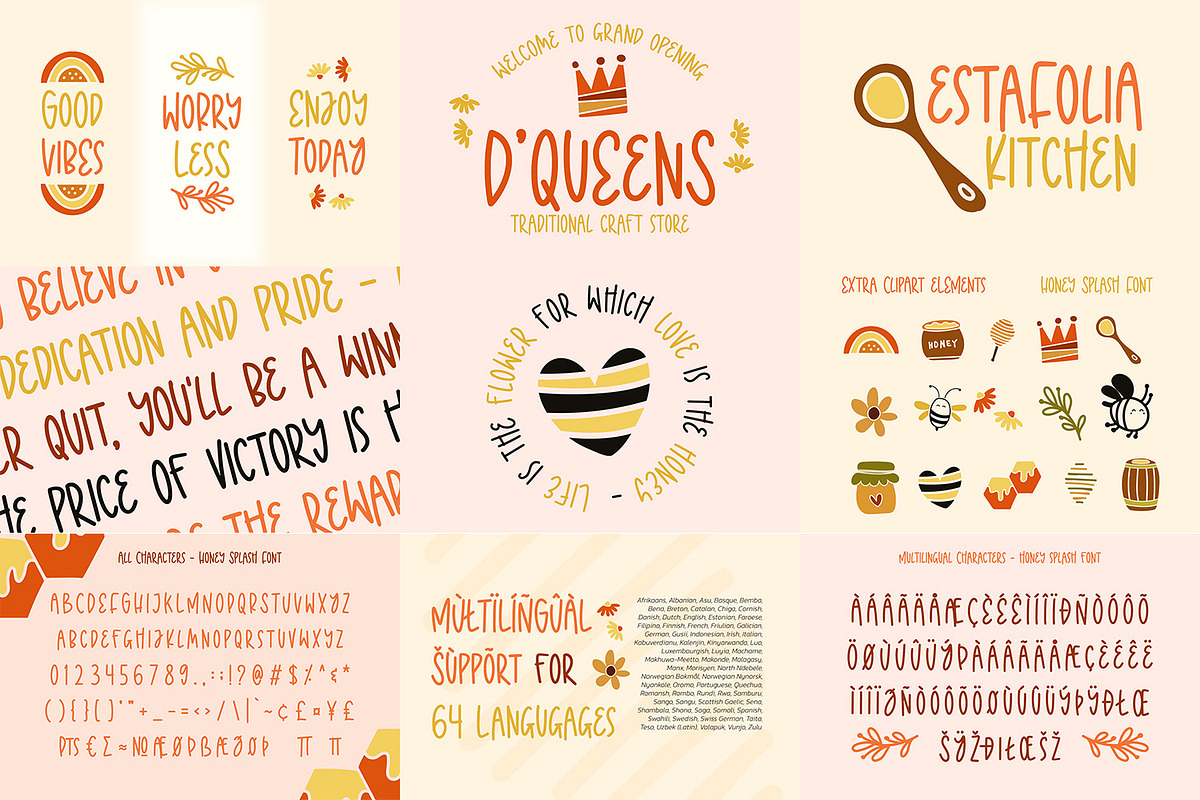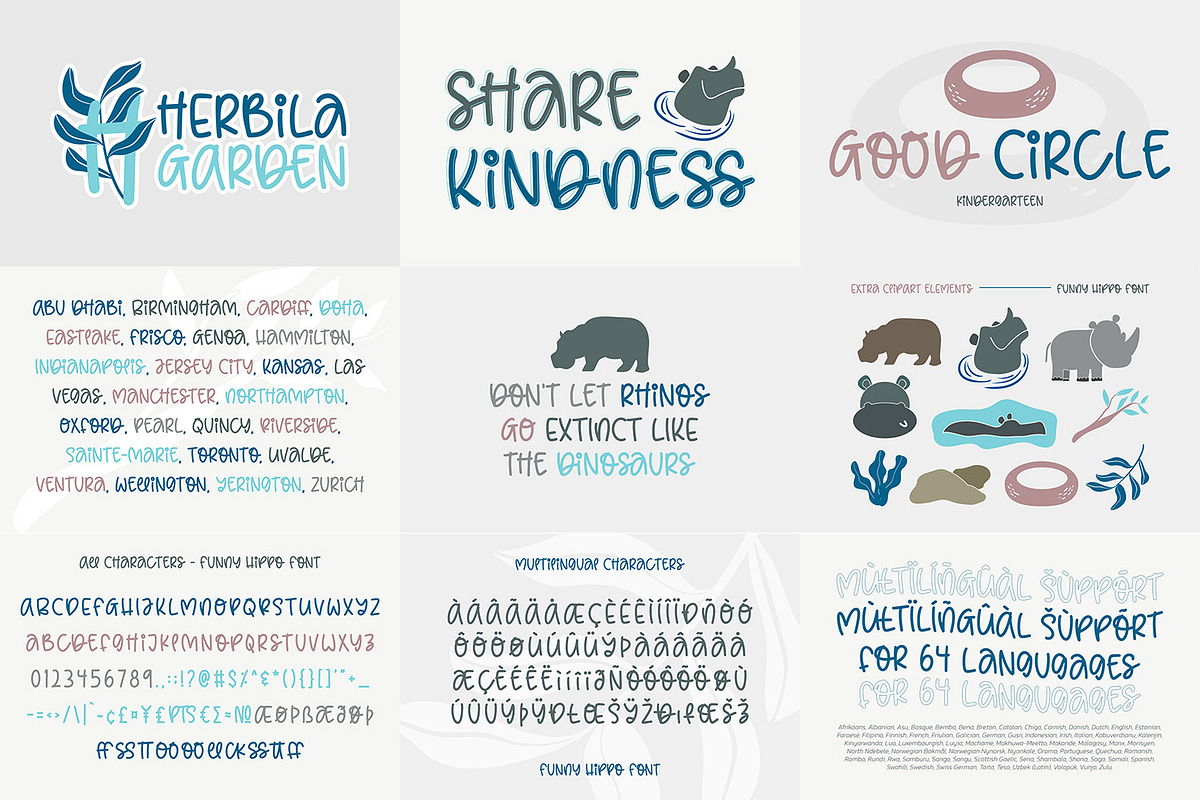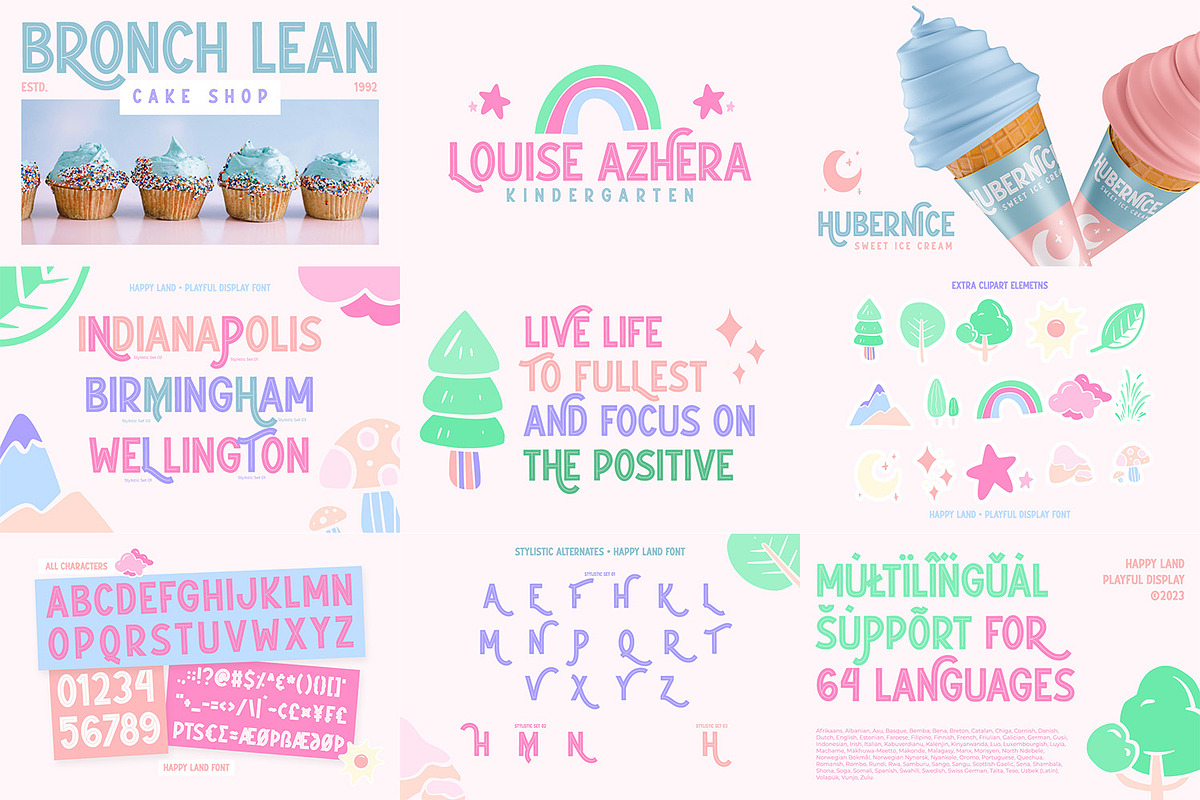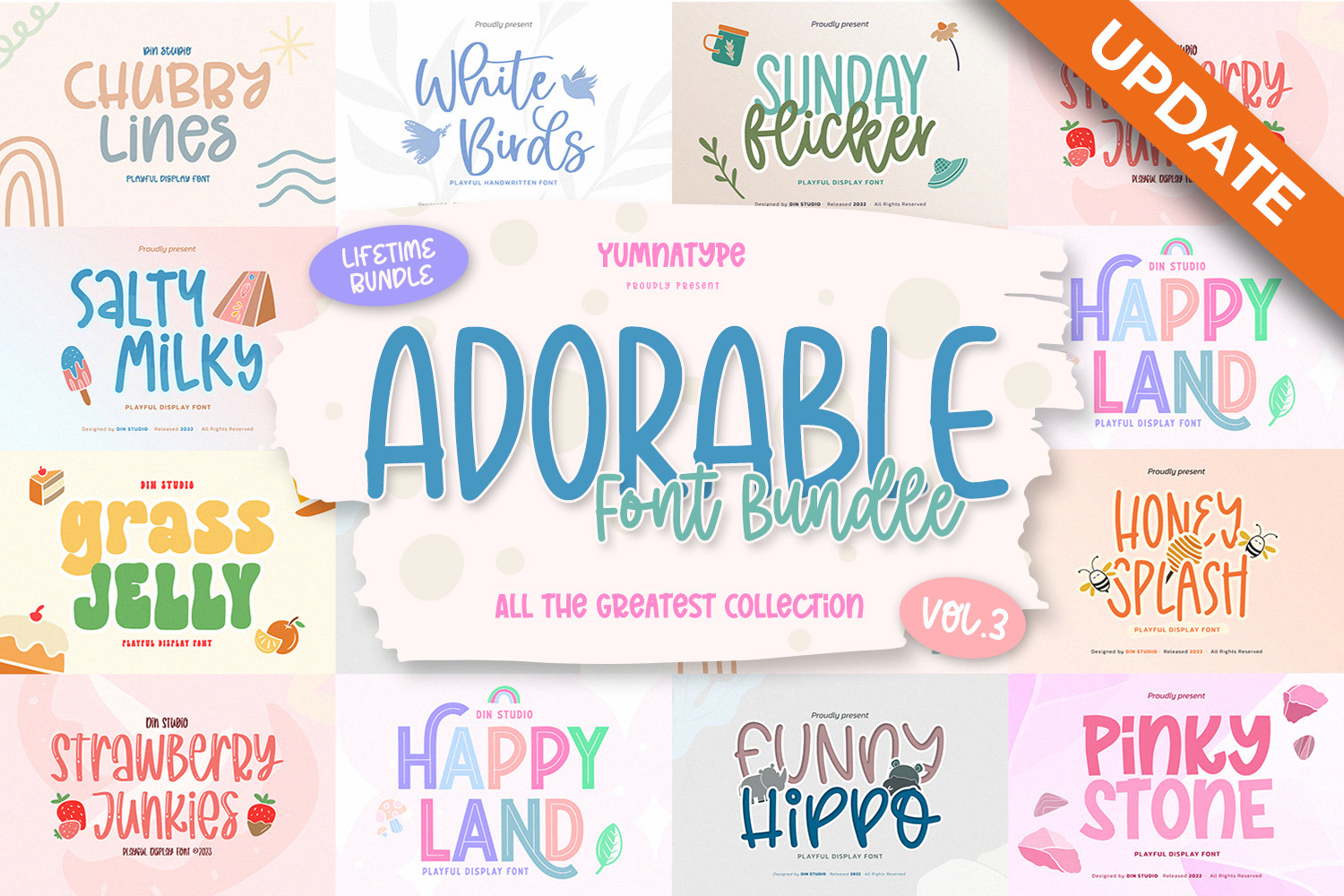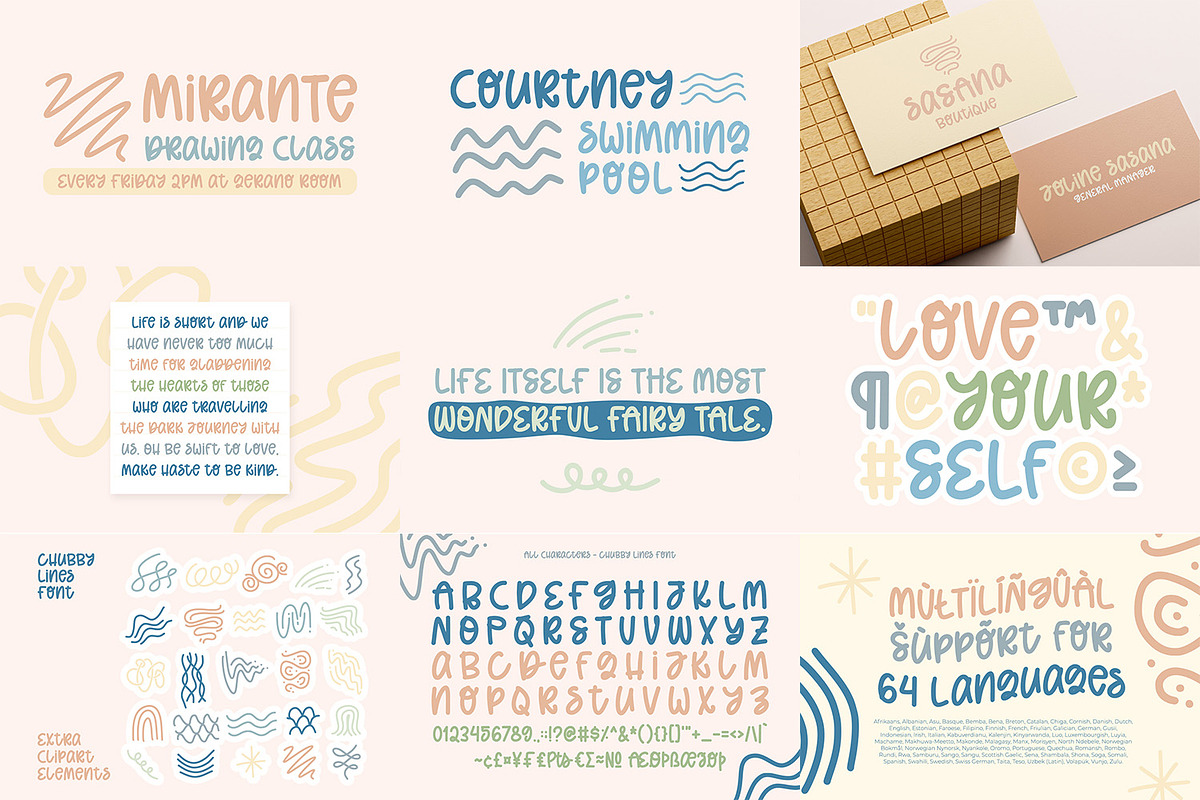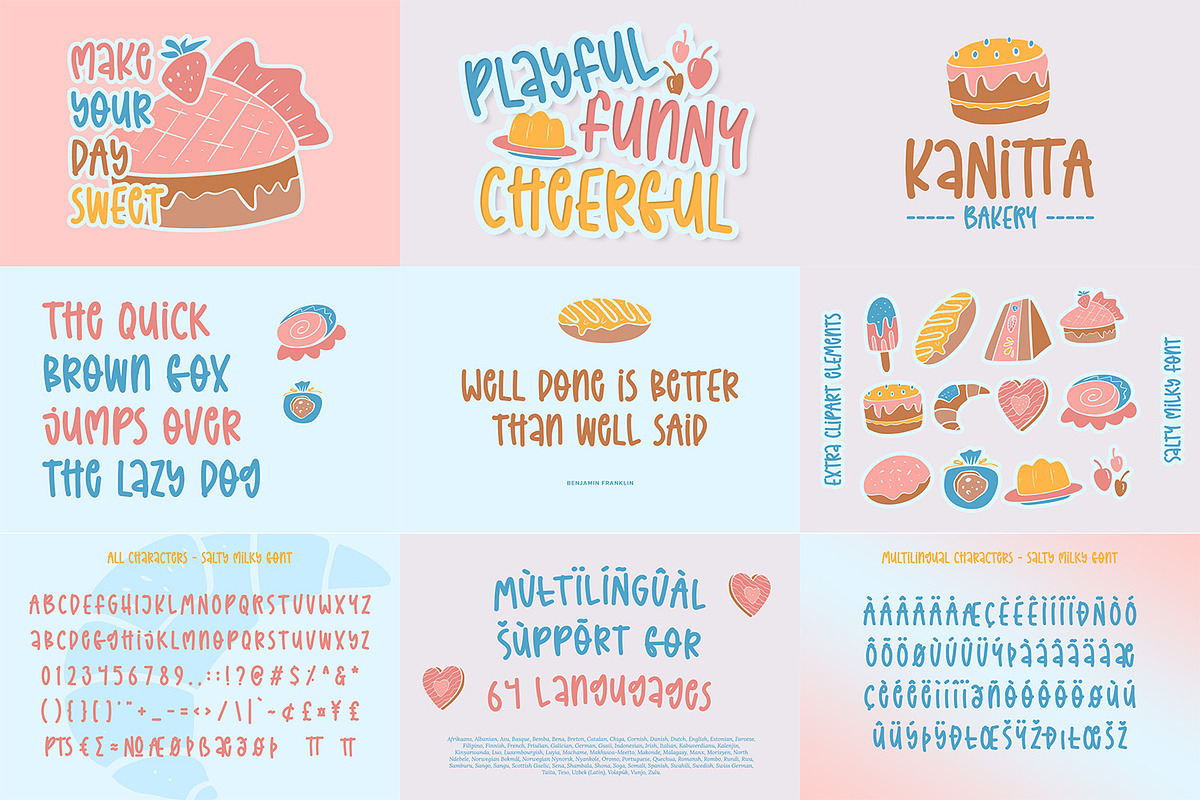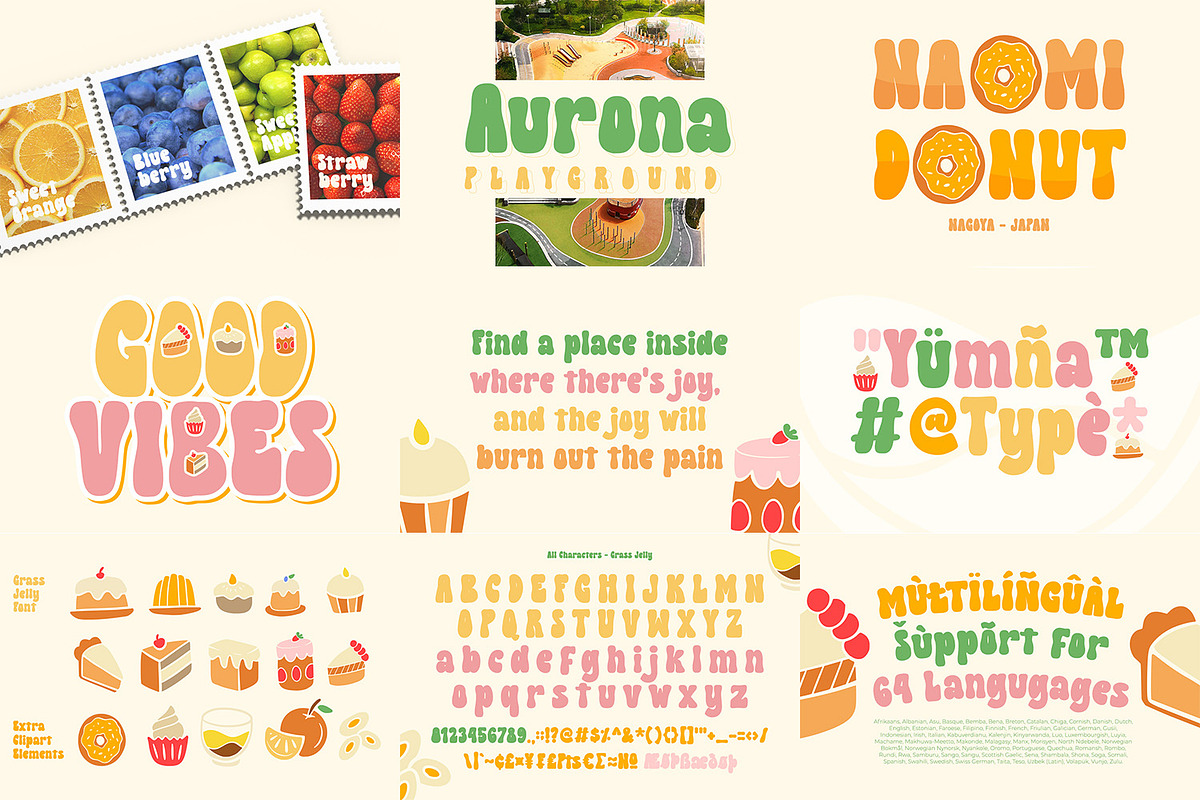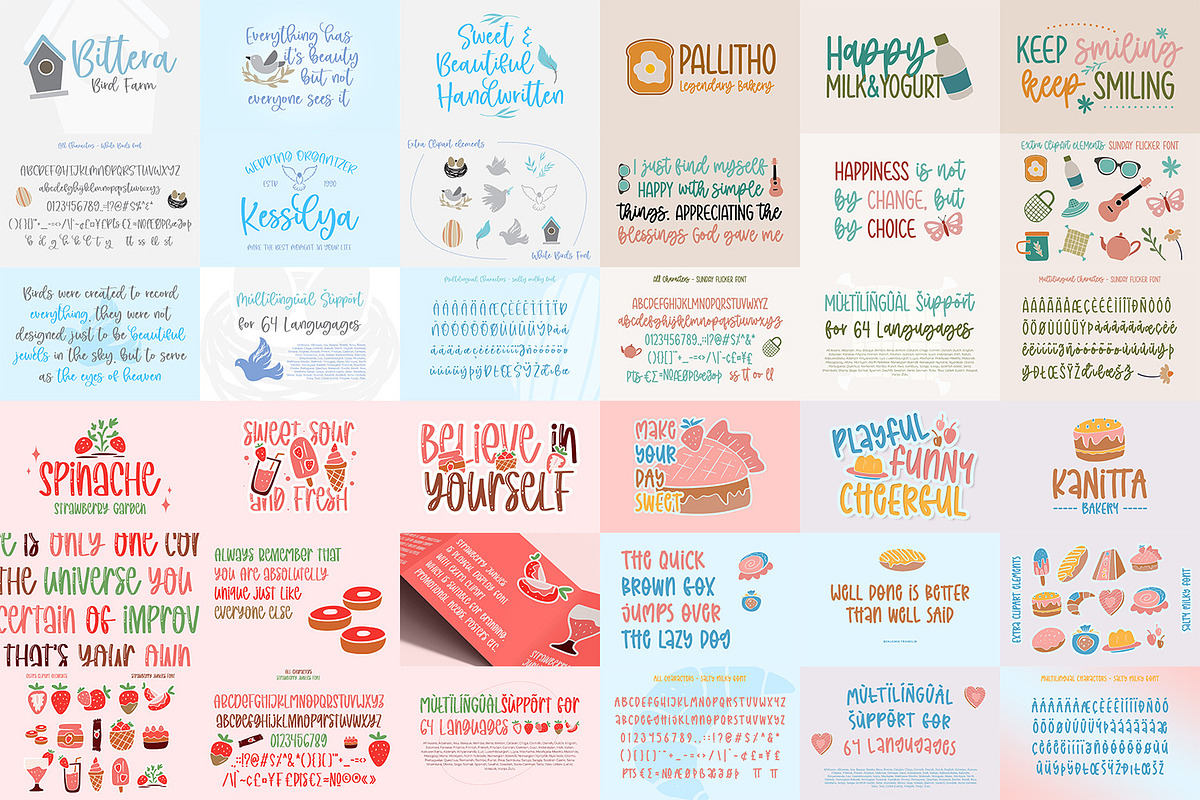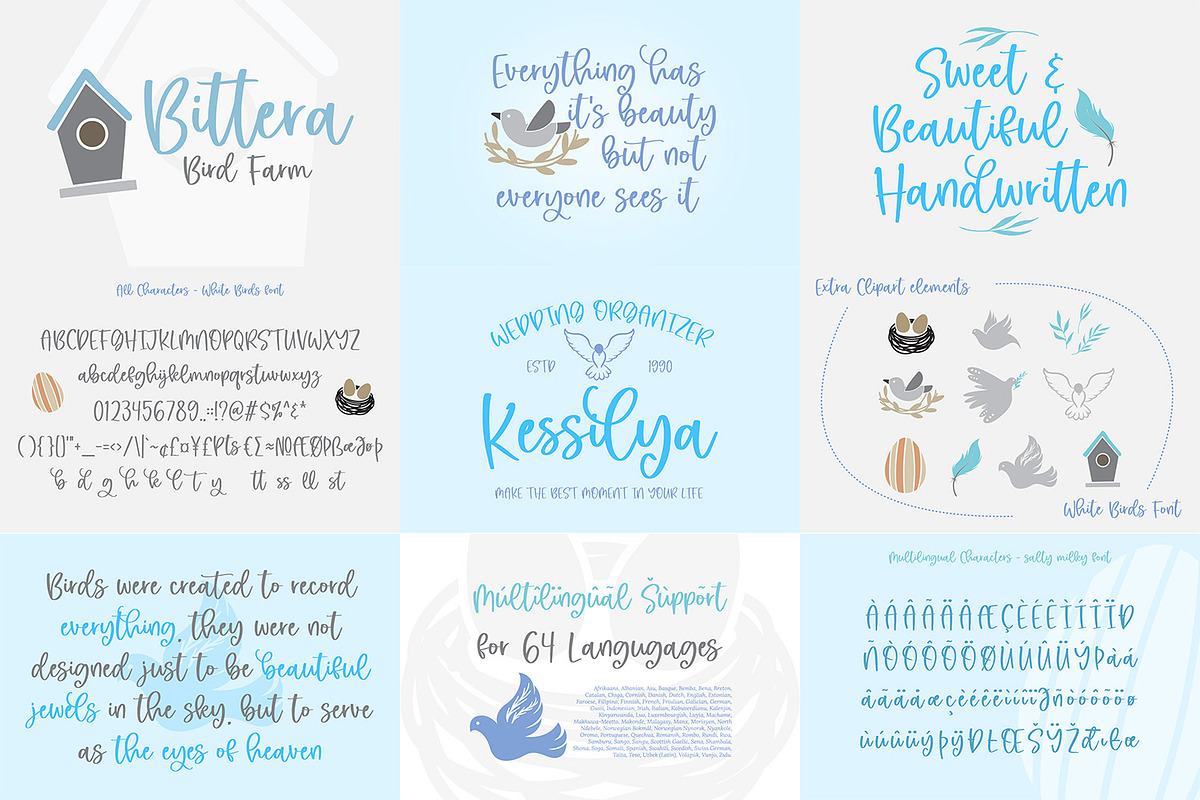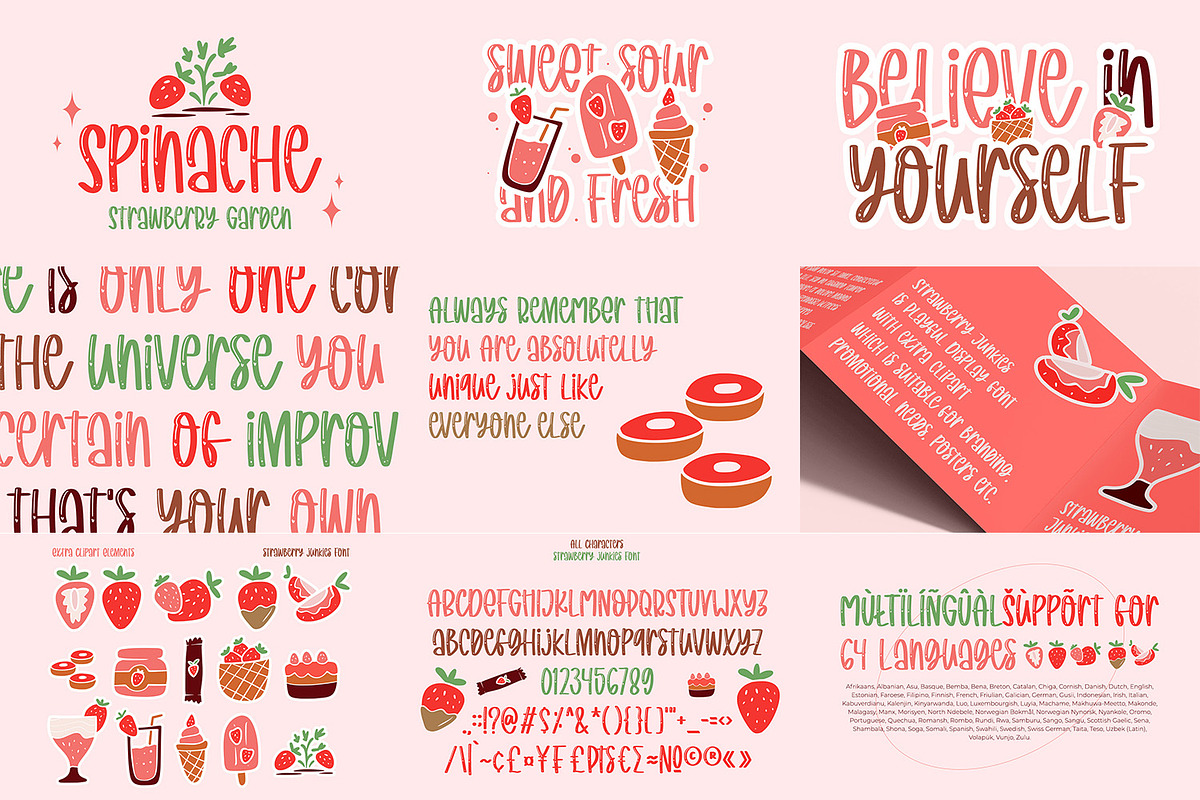
Adorable Font Bundle Vol 3
You can elevate your design with this beautiful font collection. A delightful collection of fonts that exudes charm and playfulness. It can be used for many design projects, such as poster, book cover, branding, printed product, merchandise, quotes, social media campaign, etc.
The font includes Multilingual Support as our commitment to support your brand globally recognize. See the previews above to get some inspiration on how you can use them.
Modern Display Font Bundle included :